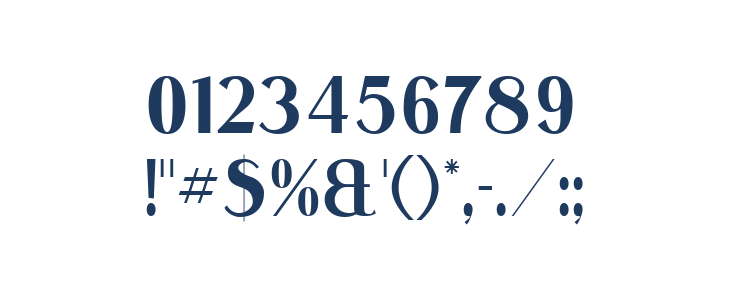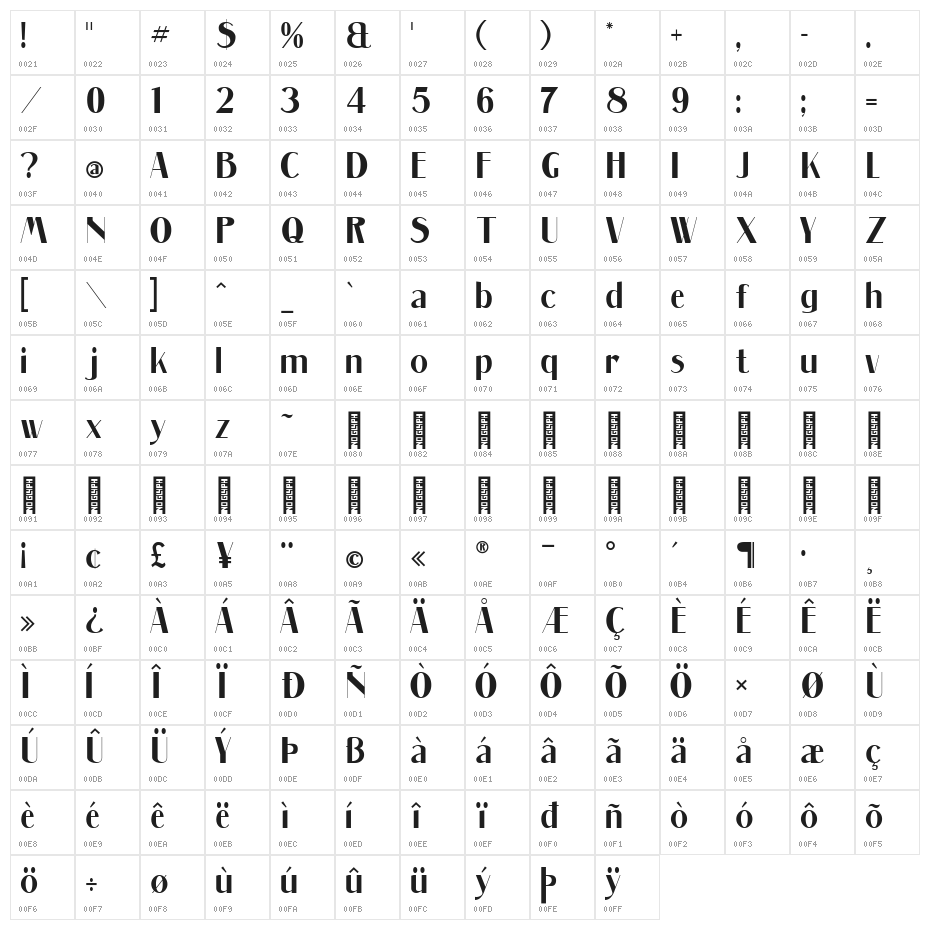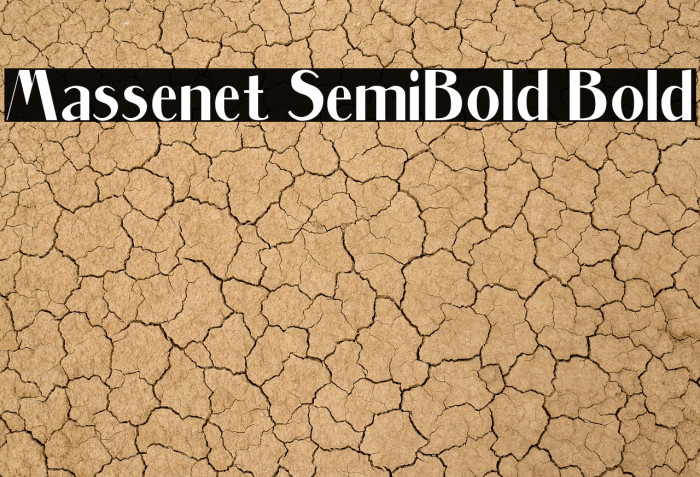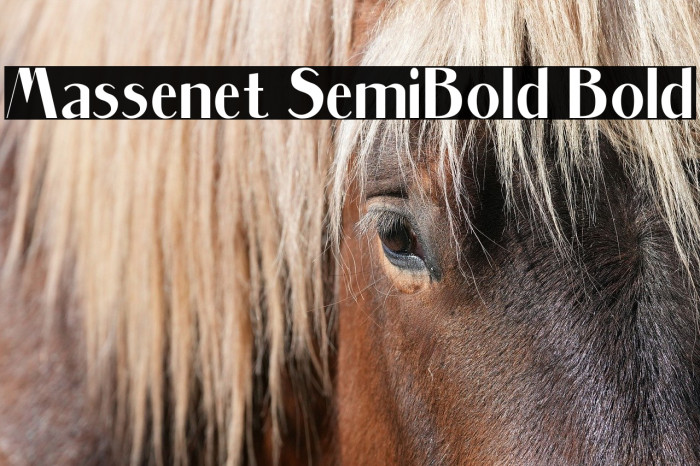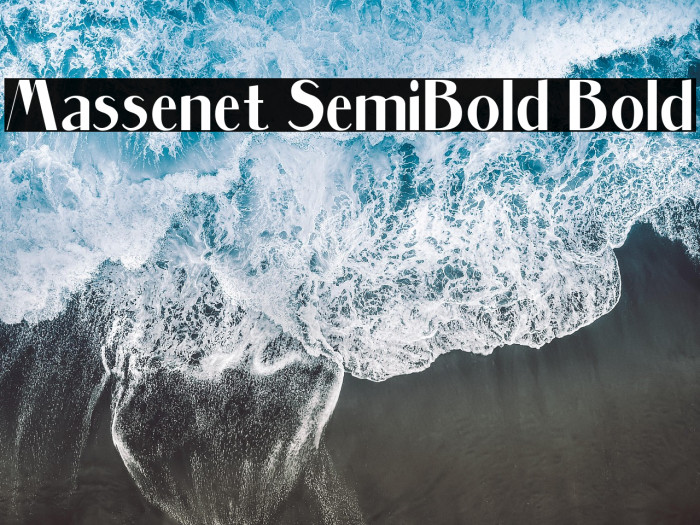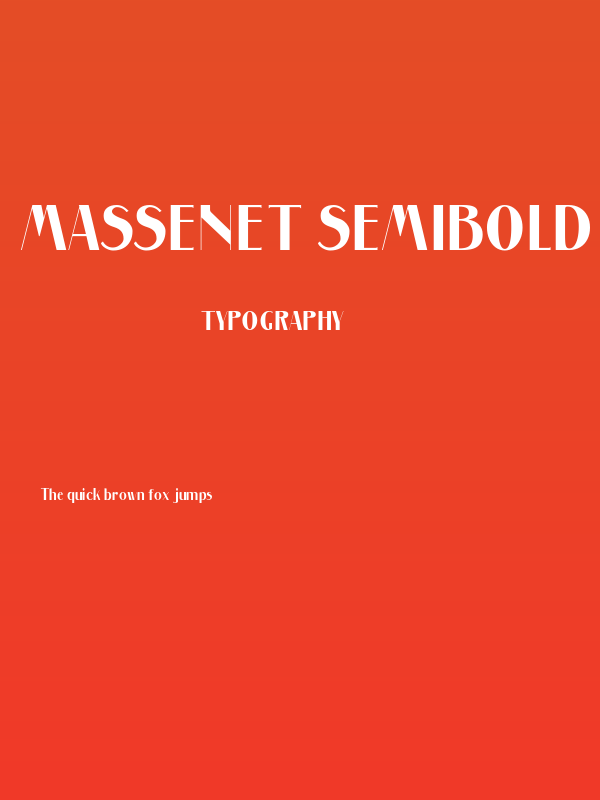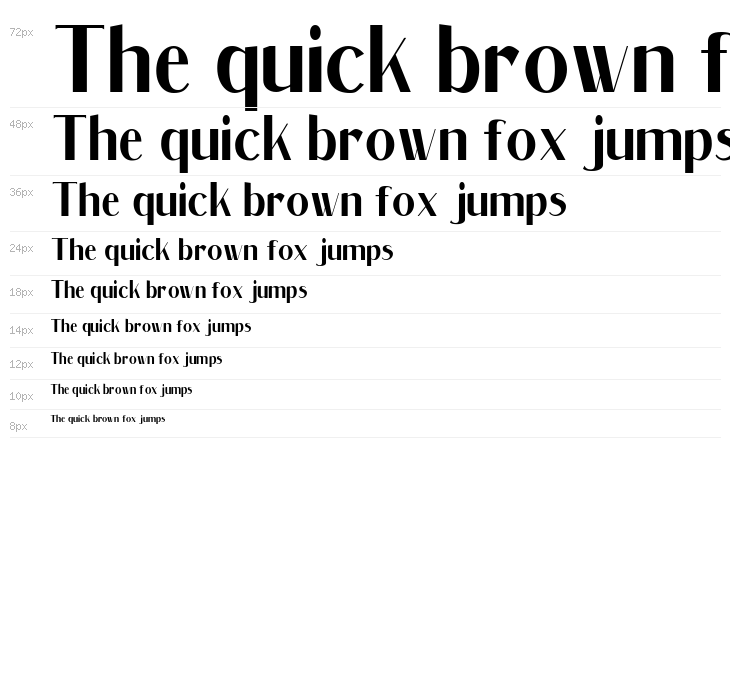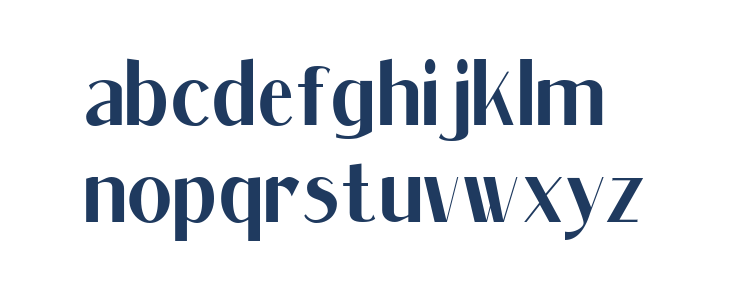
Massenet SemiBold Bold Font
Massenet SemiBold Bold Description
This font exhibits a bold and striking appearance, characterized by its thick strokes and high contrast between thick and thin lines. The uppercase letters are particularly prominent, with a modern and slightly condensed style that conveys strength and elegance. The lowercase letters maintain a consistent design, offering a harmonious blend with the uppercase. Numerals are clear and bold, ensuring readability. Special characters are well-integrated, maintaining the overall aesthetic. This font is suitable for making a strong visual impact while retaining a sense of sophistication.
| Proposed Projects | Ideal for branding, headlines, posters, and any project requiring a strong visual impact. |